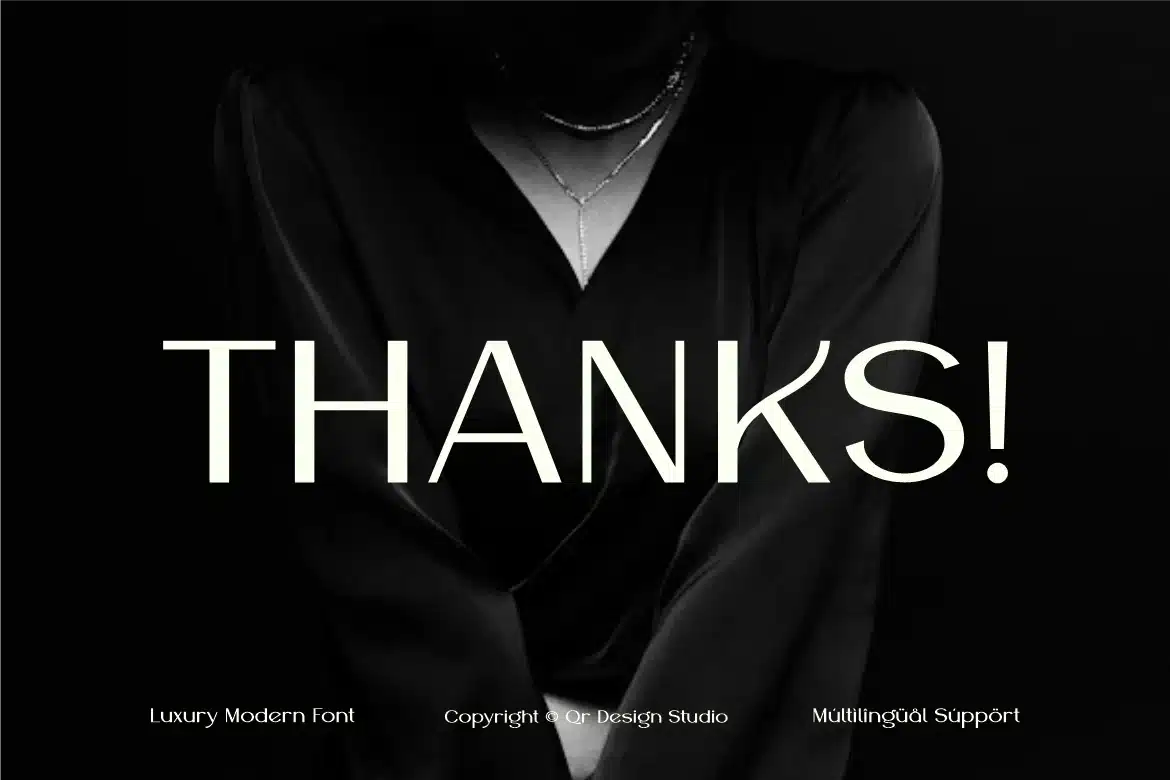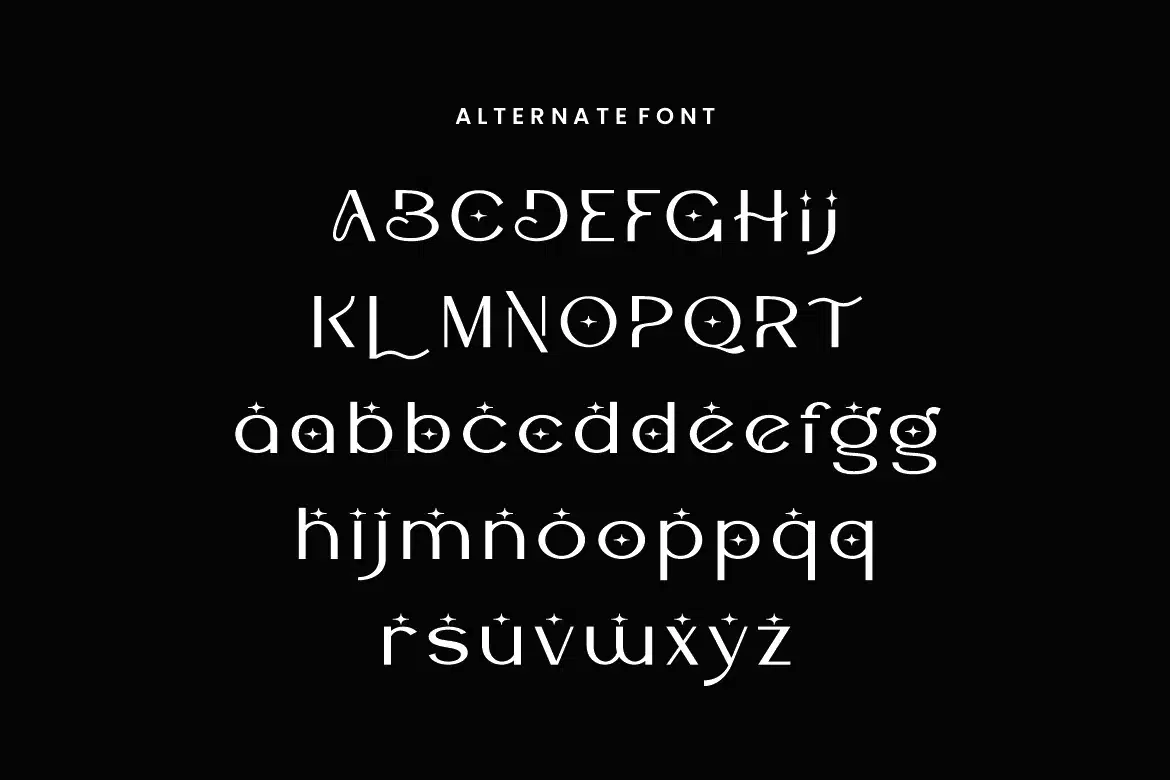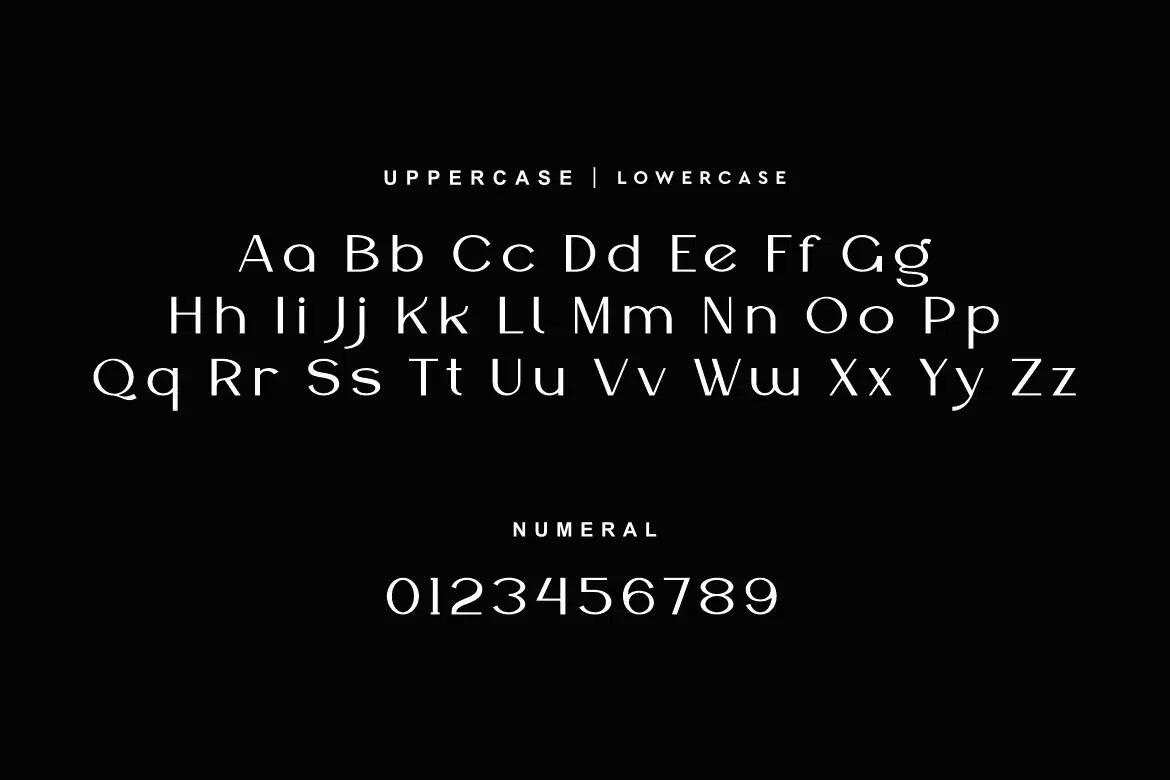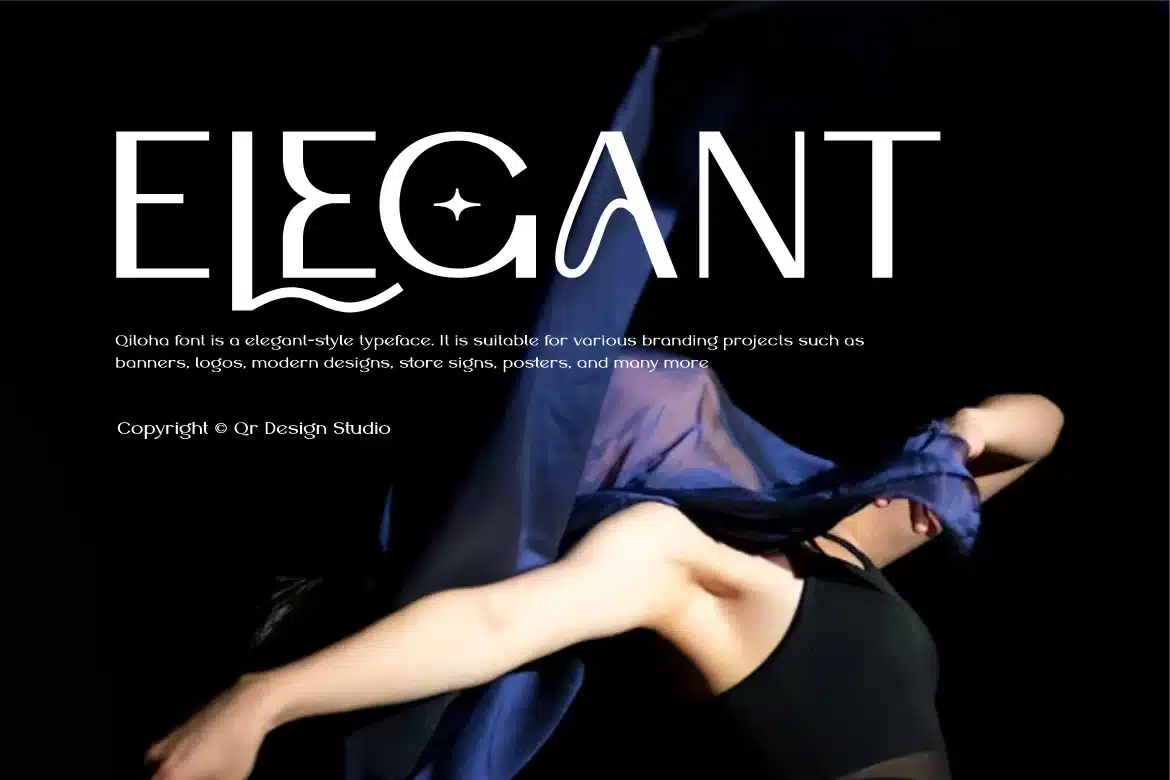
Qiloha – Elegant Brand Fashion Font
Qiloha Font is a modern and authentic display typeface.
It’s perfect for various branding projects such as logos, fashion designs,
and more. This font stands out beautifully in a wide range of contexts.